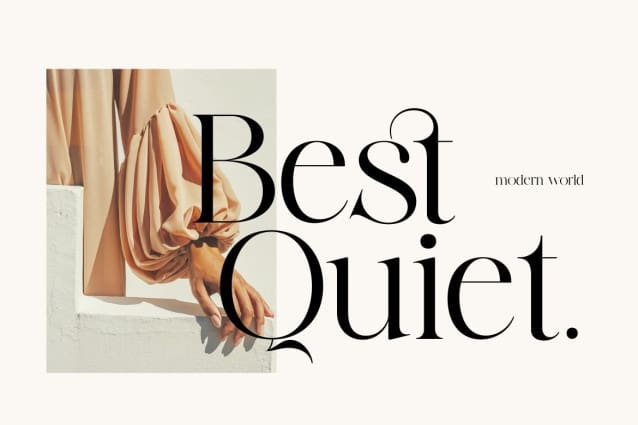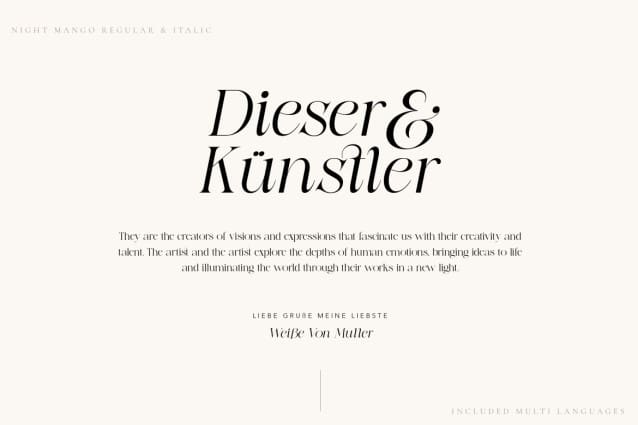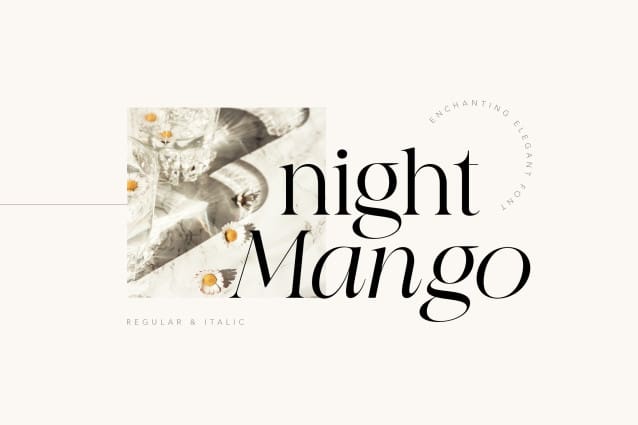
Night Mangoo Font
Night Mangoo Font is a elegant business serif font . Comes with regular and italic version . This font makes a harmonious combination for your modern and classic layouts. Perfect for any luxury design like hotel logo, restaurant menu, restaurant poster or web, wedding invitation, and many others